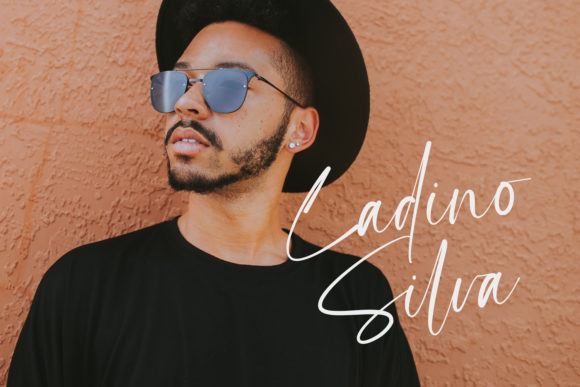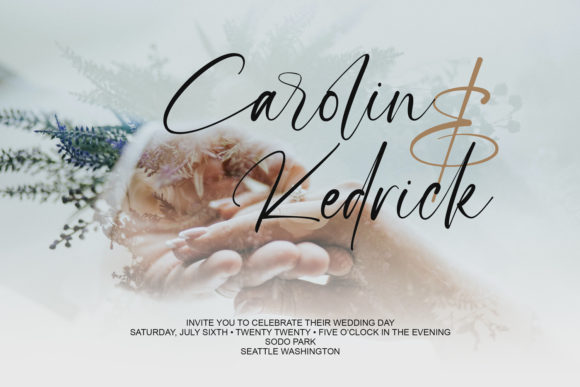
Highes Signature Font
db-ku.com - Script & Handwritten -- Highes Signature is a beautiful and flowing script font with a modern style. This gentle font will look gorgeous on a variety of design ideas.